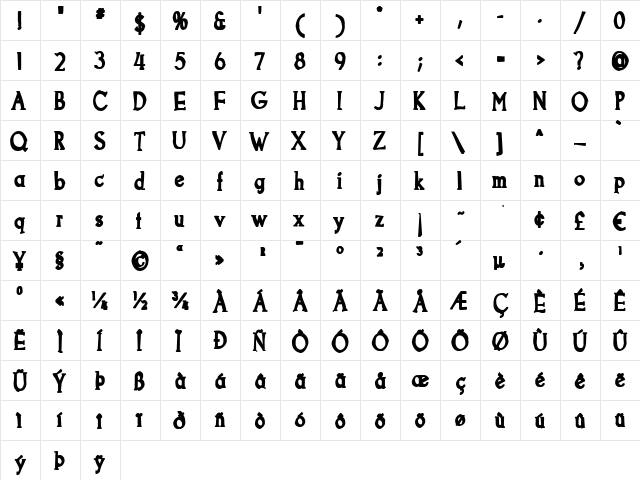
Goodfish Ink Regular
Goodfish Ink is a composed and adaptable typeface that performs quietly and consistently across a wide range of design contexts.